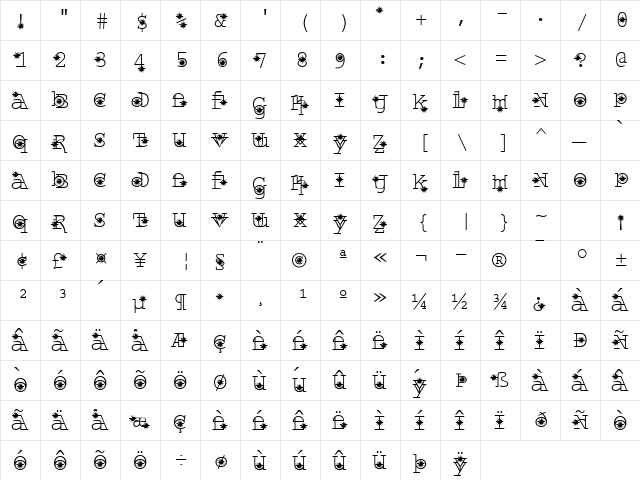
WroughtIron Maces
Design Context for WroughtIron Typeface
WroughtIron embraces imperfection — its rough, textured character adds raw authenticity to designs that want to feel lived-in and unconventional.
A strong fit for alternative music projects, graffiti-adjacent design, and anything that deliberately resists polish.
Pro Tip: Use WroughtIron at larger sizes where the texture and irregularity of each letterform can be clearly seen — it loses its character at small sizes.